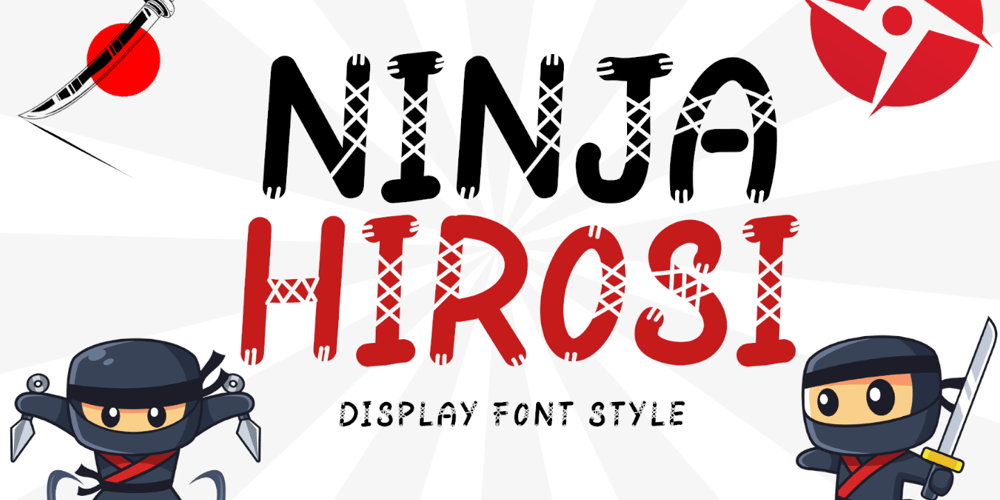
Ninja Hirosi
Ninja Hirosi font
Ninja Hirosi Font Family was designed by Isroni Yoga Prasetya and published by Yoga Letter. Ninja Hirosi contains 1 styles and family package options. “Ninja Hirosi” is a very unique and cute display font. This font is equipped with uppercase, lowercase, numerals, punctuation, and multilingual support. Very suitable for comics, book titles, promotions, business branding, stickers, banners, branding, logos, film titles, and others.